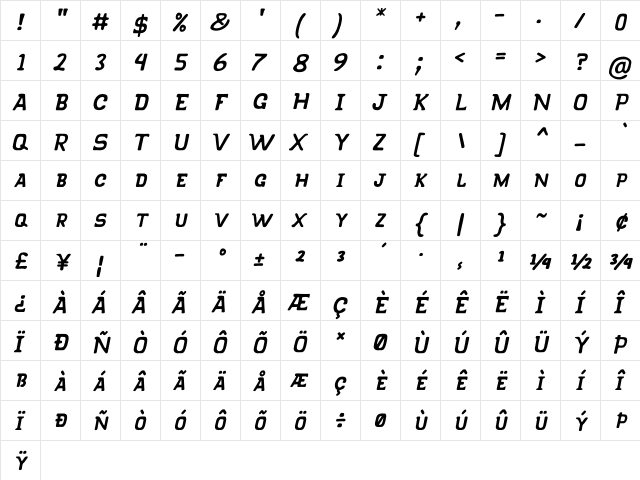
KLAPJO Italic
| Foundry | 7NTypes |
| Designer | Andrian Dehasta, Situjuh Nazara |
Design Context for KLAPJO Typeface
KLAPJO offers clean, dependable letterforms without strong stylistic allegiance, making it a practical choice for designers who need flexibility. The dynamic lean of this cut emphasises speed and emphasis in any layout.
Pro Tip: Use KLAPJO for emphasis, pull quotes, and subheadings where its slanted energy can add rhythm to the layout.